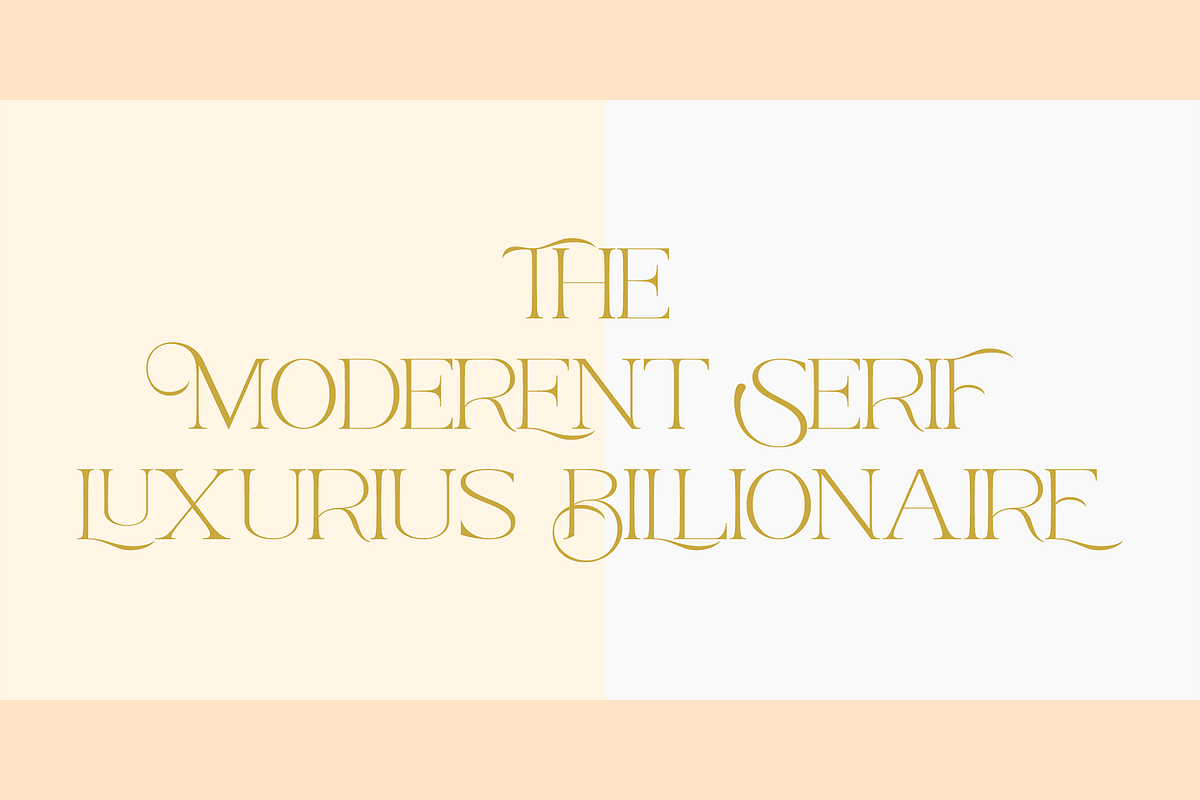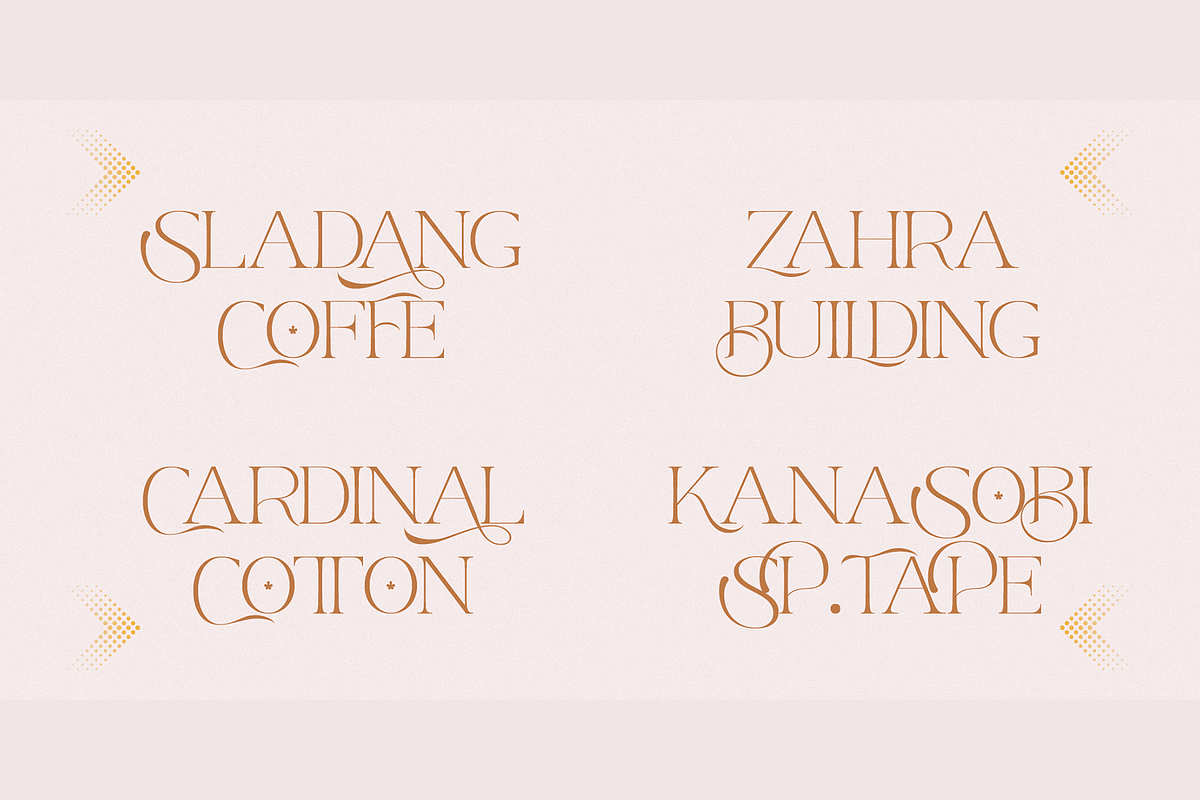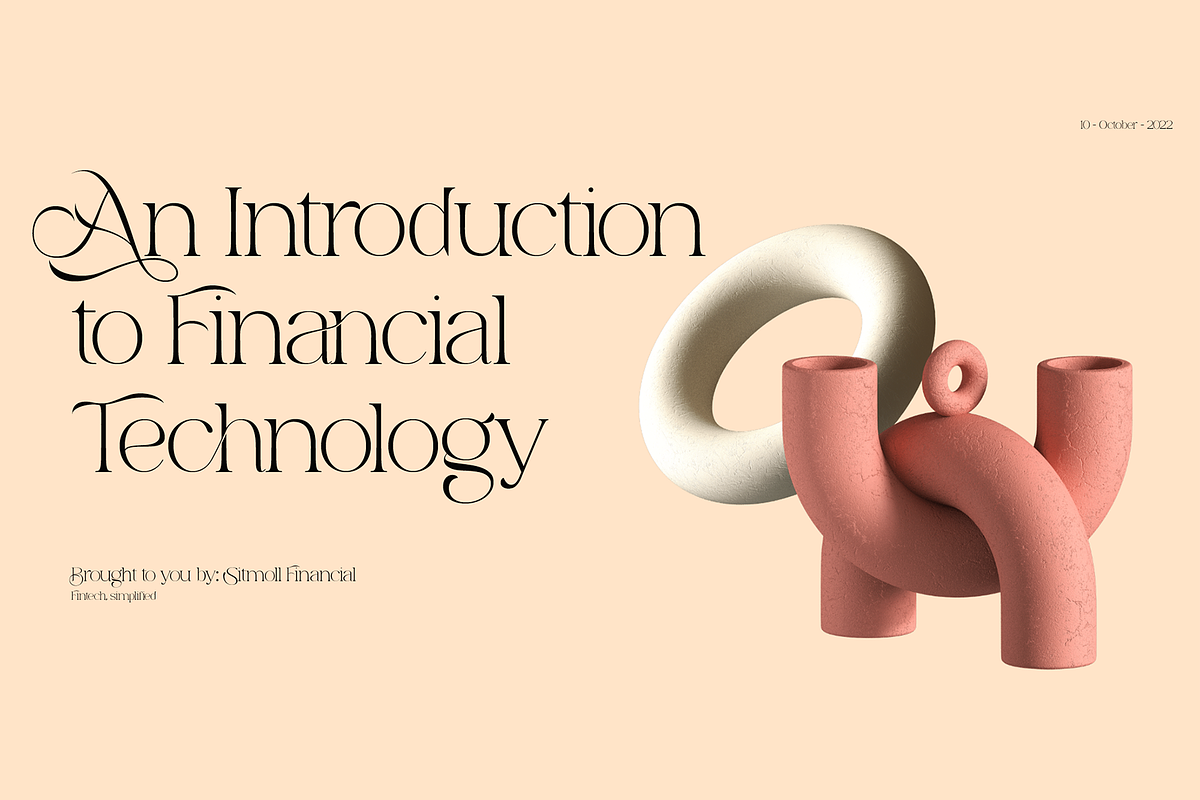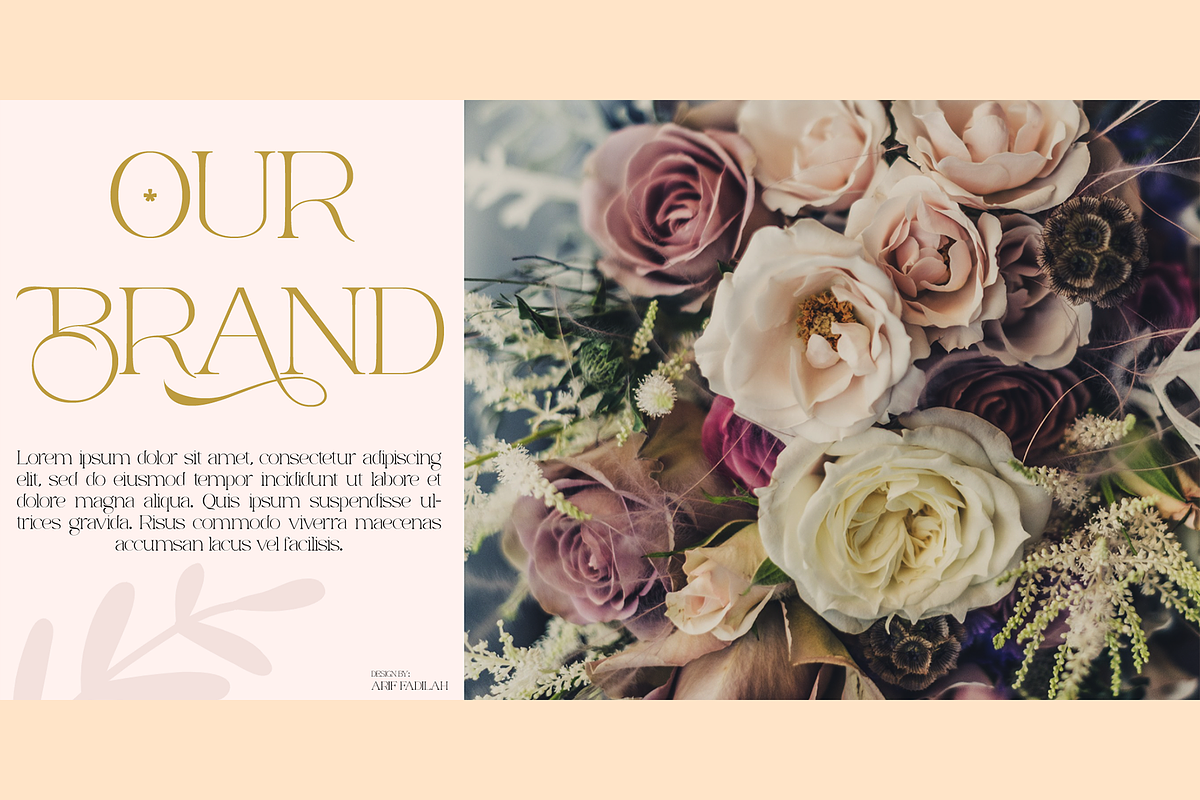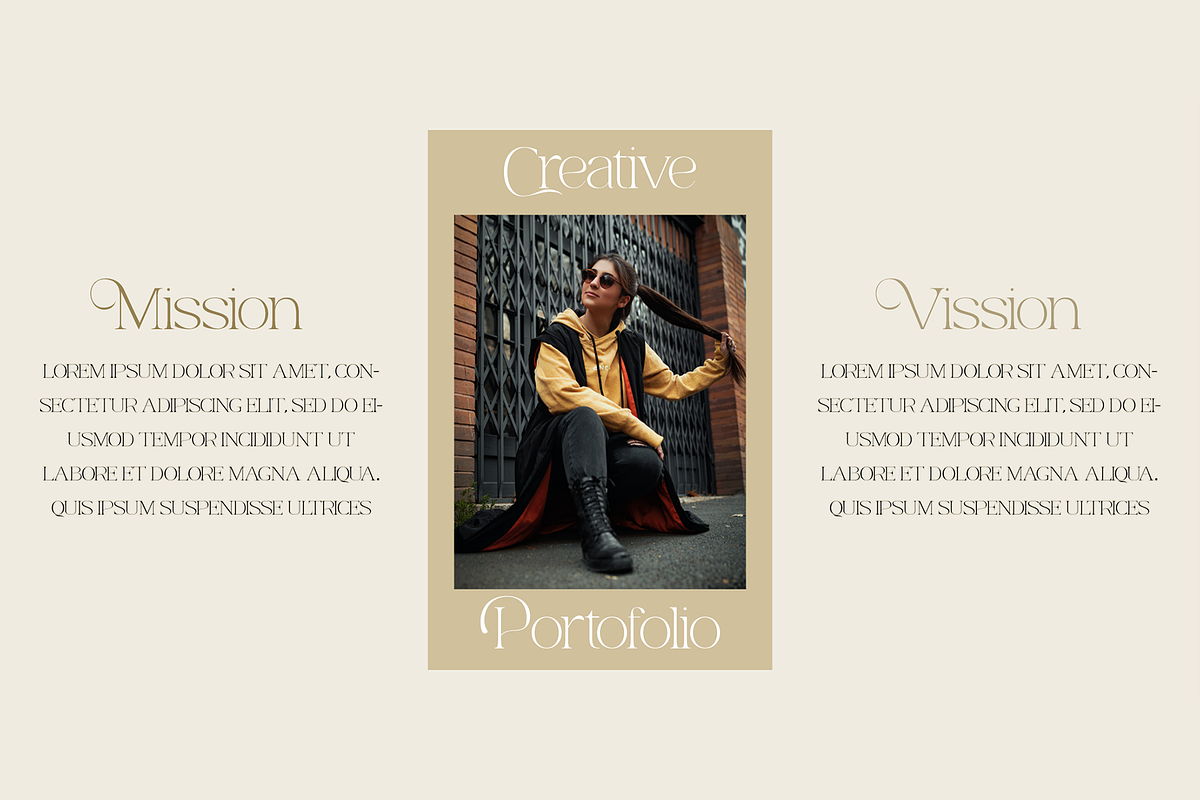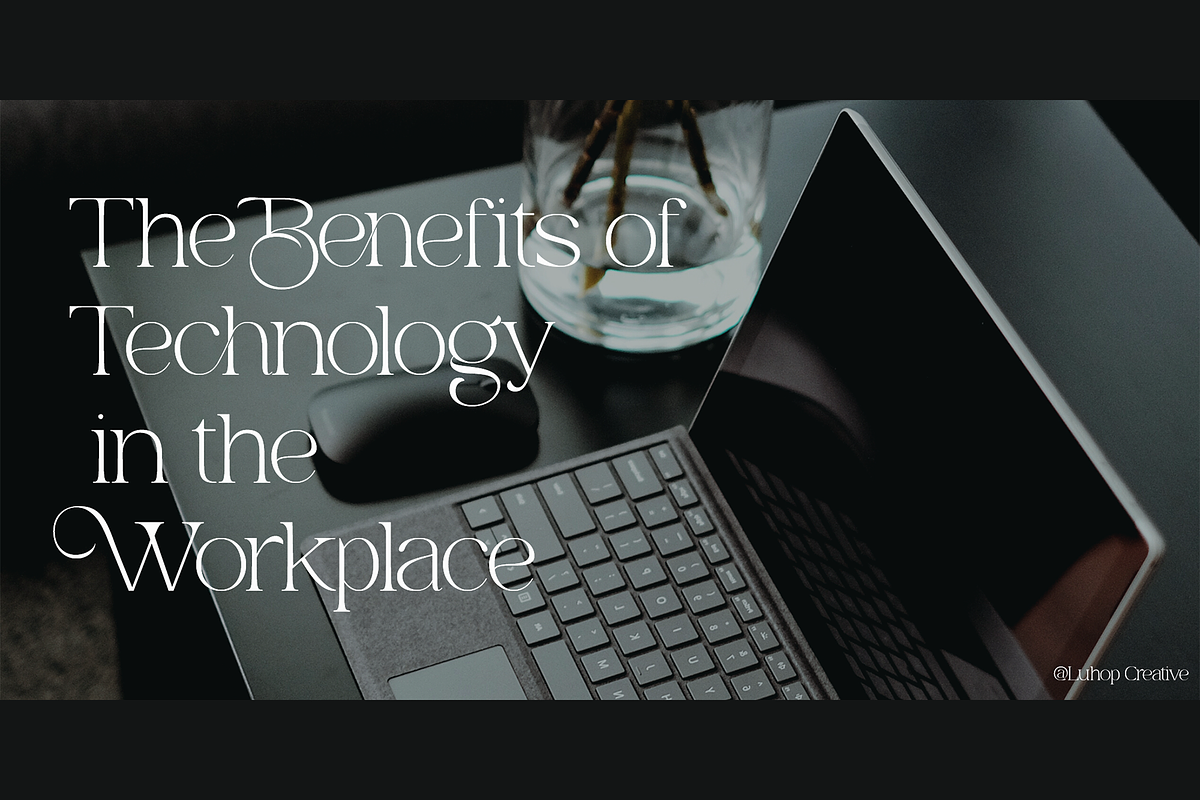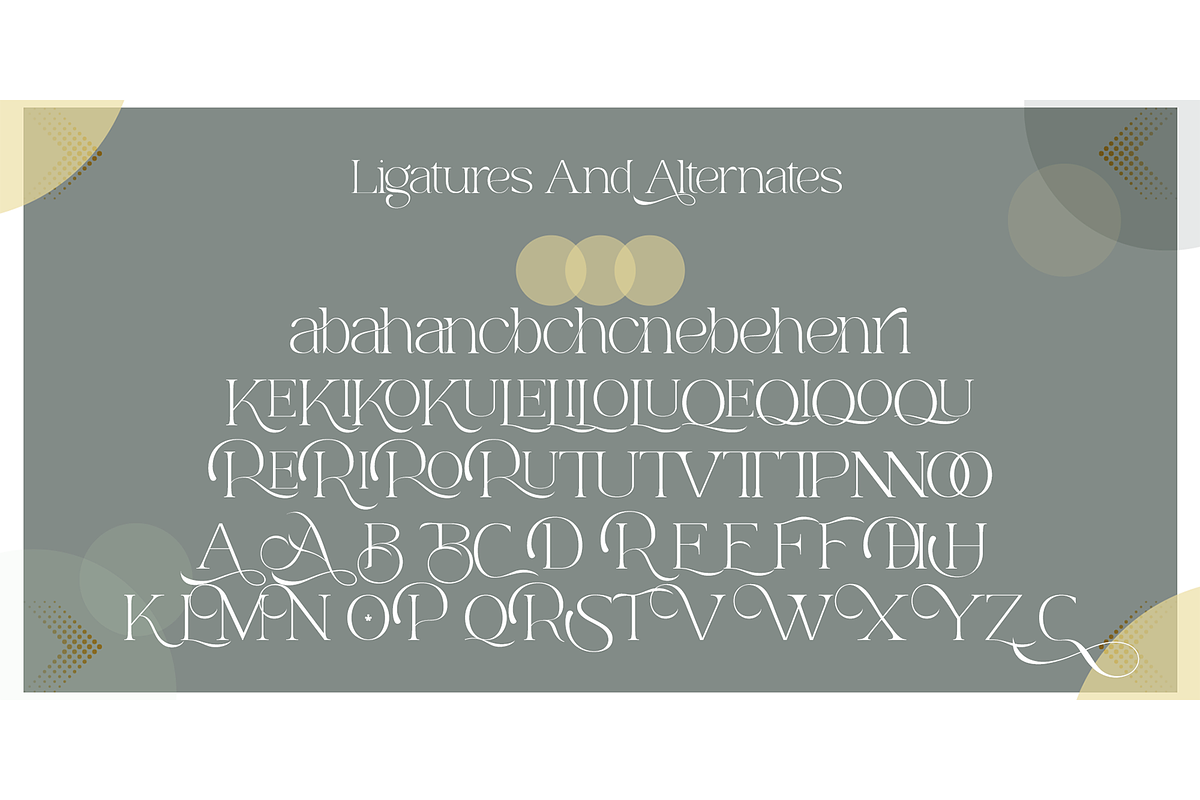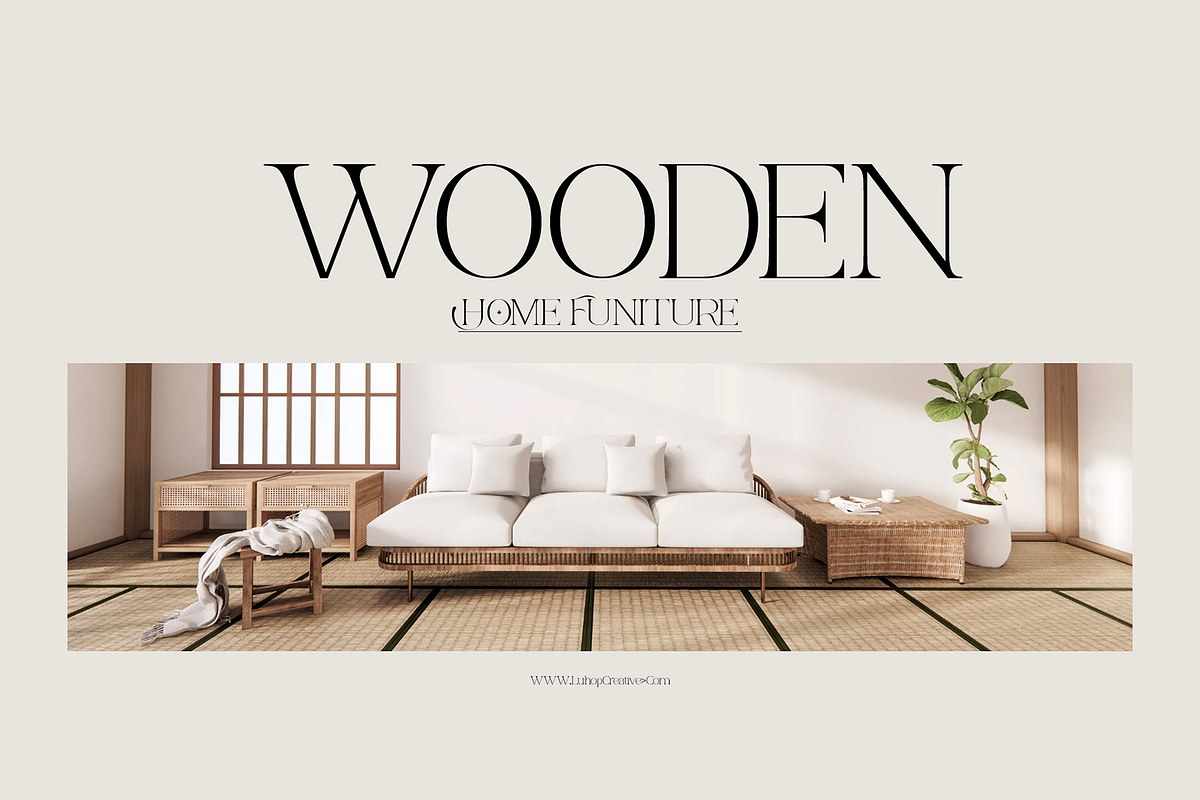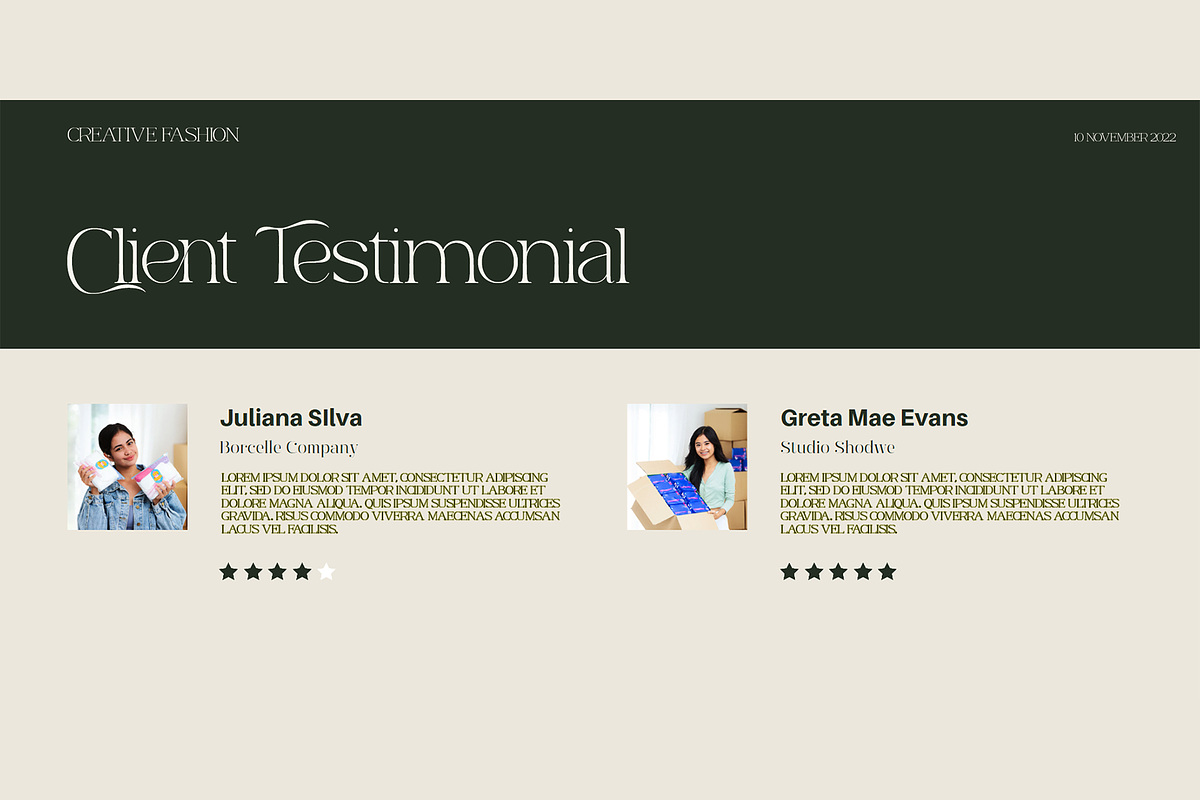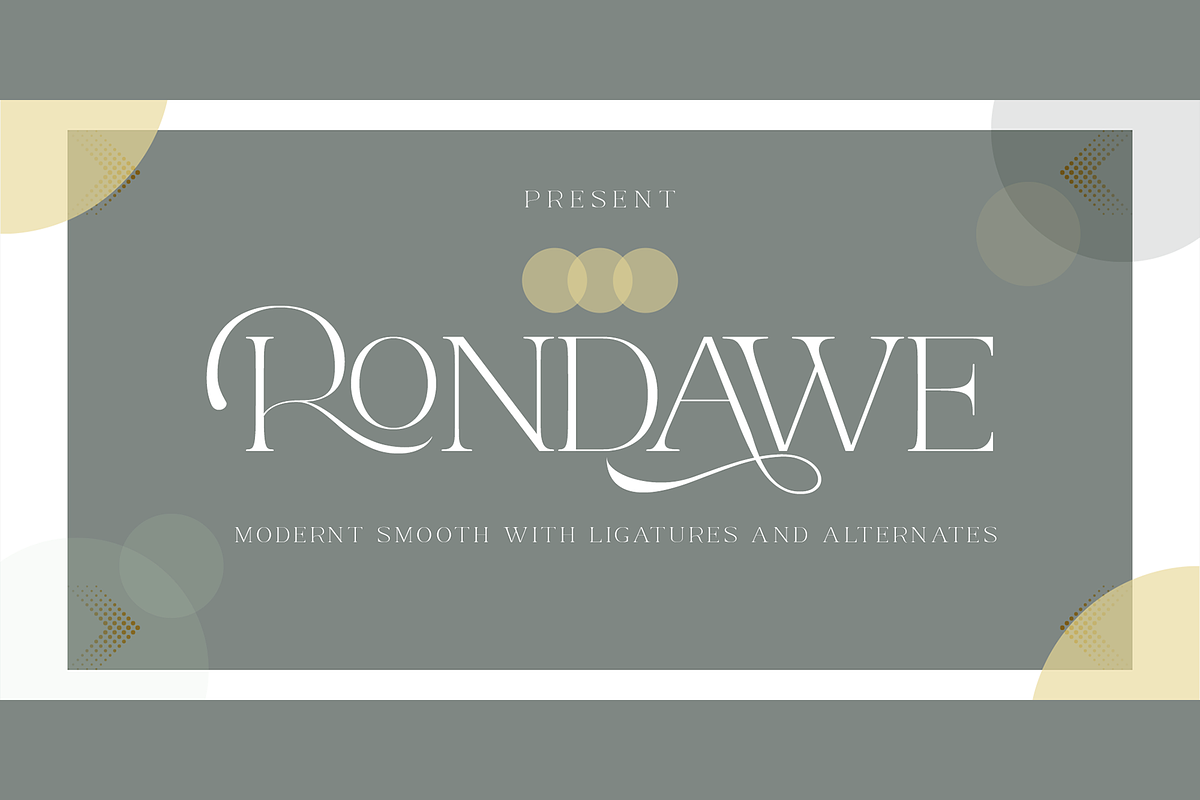
Rondawe
If you've got style and love all the luxuries in life, you're Rondawe! Add a touch of luxury and style to your projects too, with the new Rondawe Font Collection. It's highly recommended to turn your Opentype features on while using the Rondawe font, to make use of it's best features - the multitude of OpenType ligatures and alternates.
This font is designed to pair harmoniously, and lend themselves to high end branding, logo designs, product packaging & invitation designs.Creates a perfect pairing contrast with combining Rondawe Serif and all Script font.